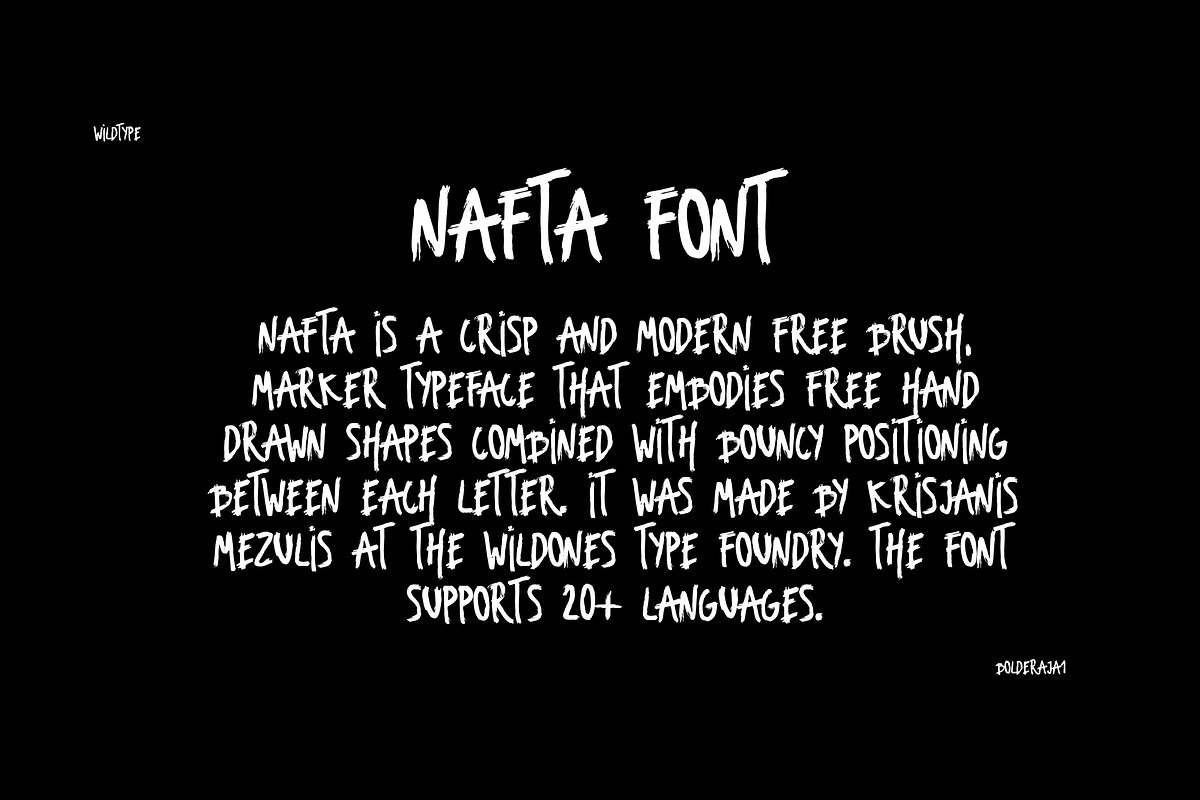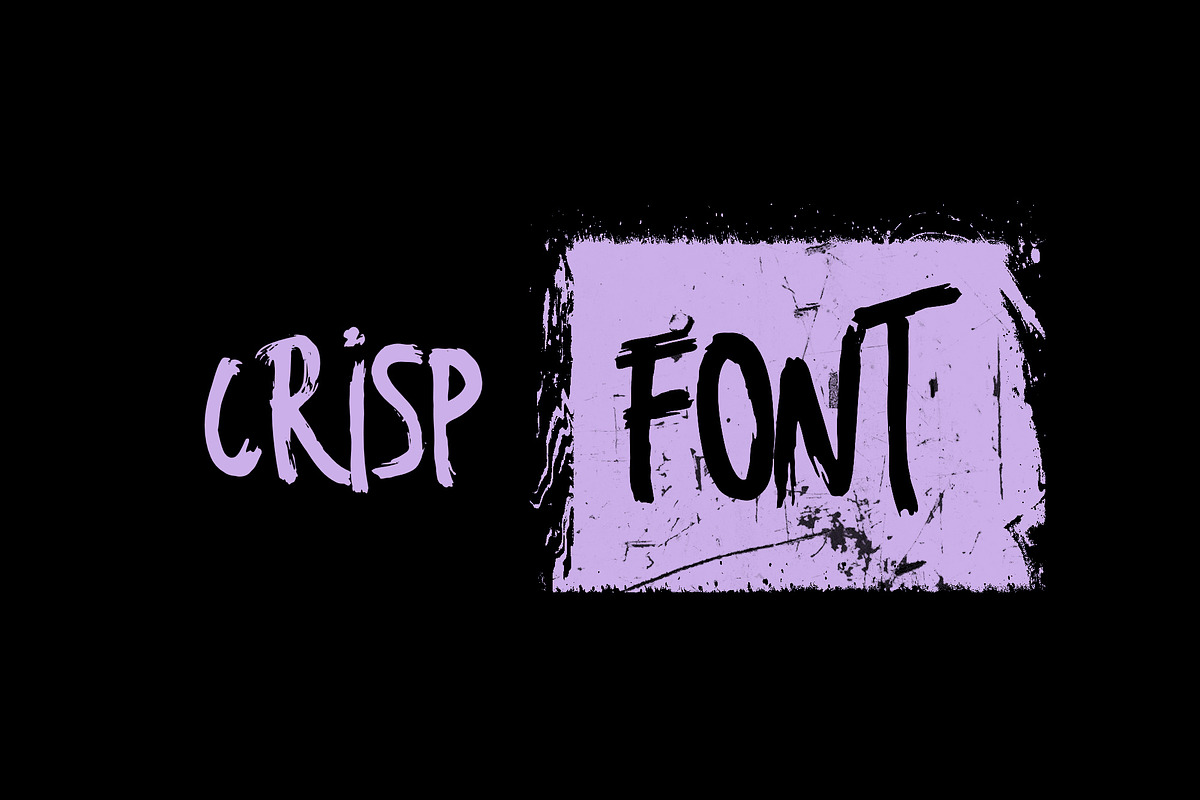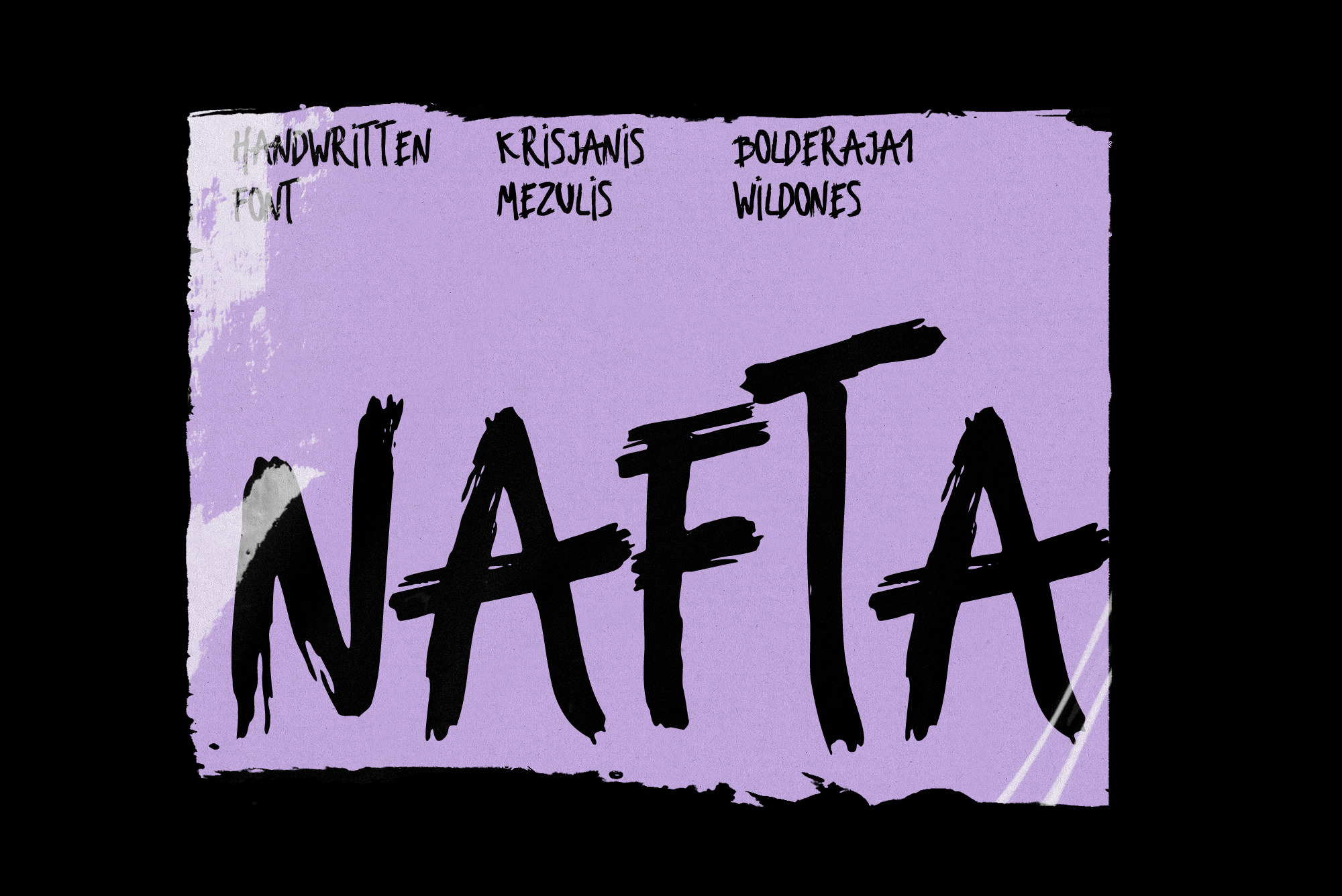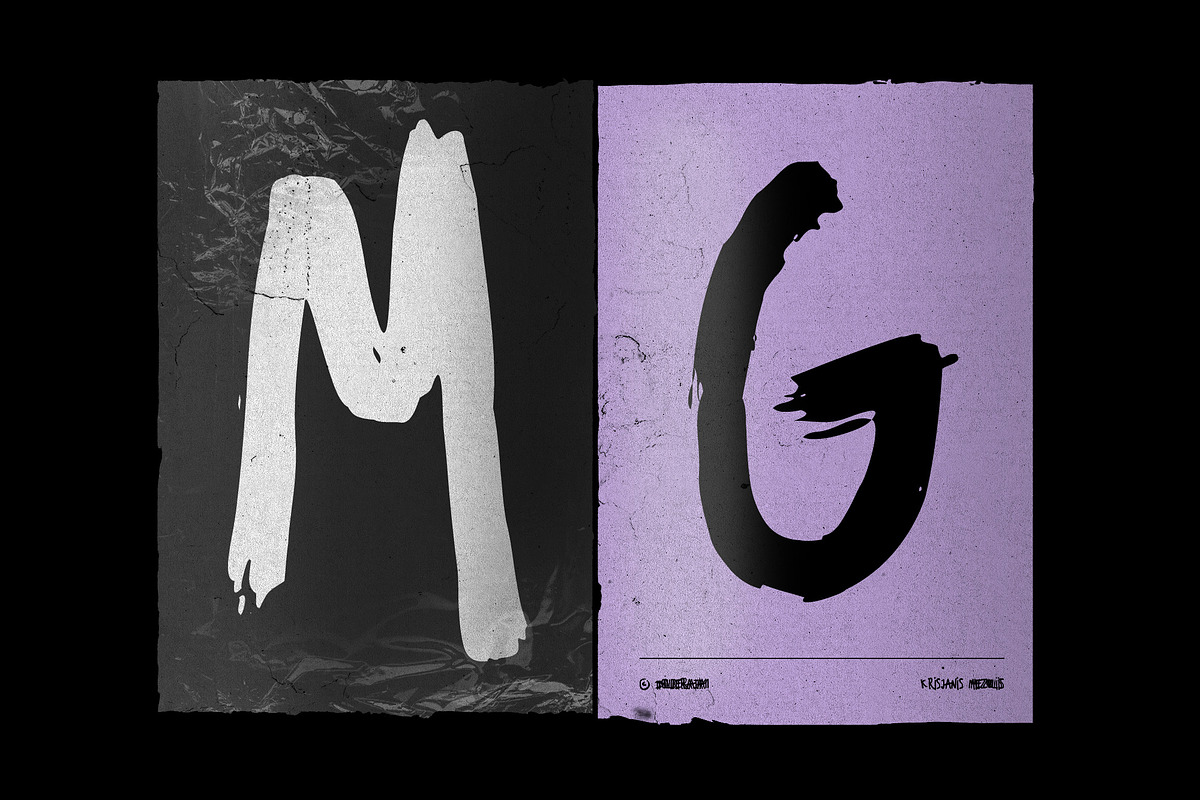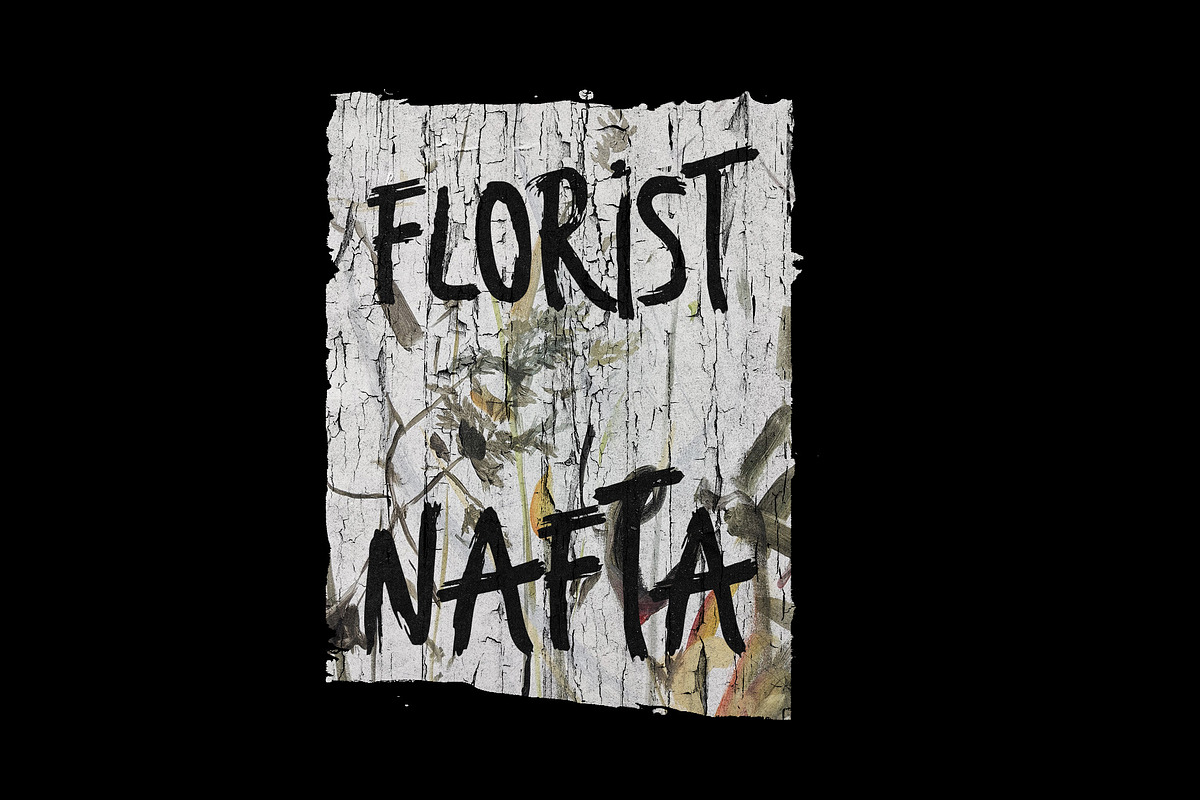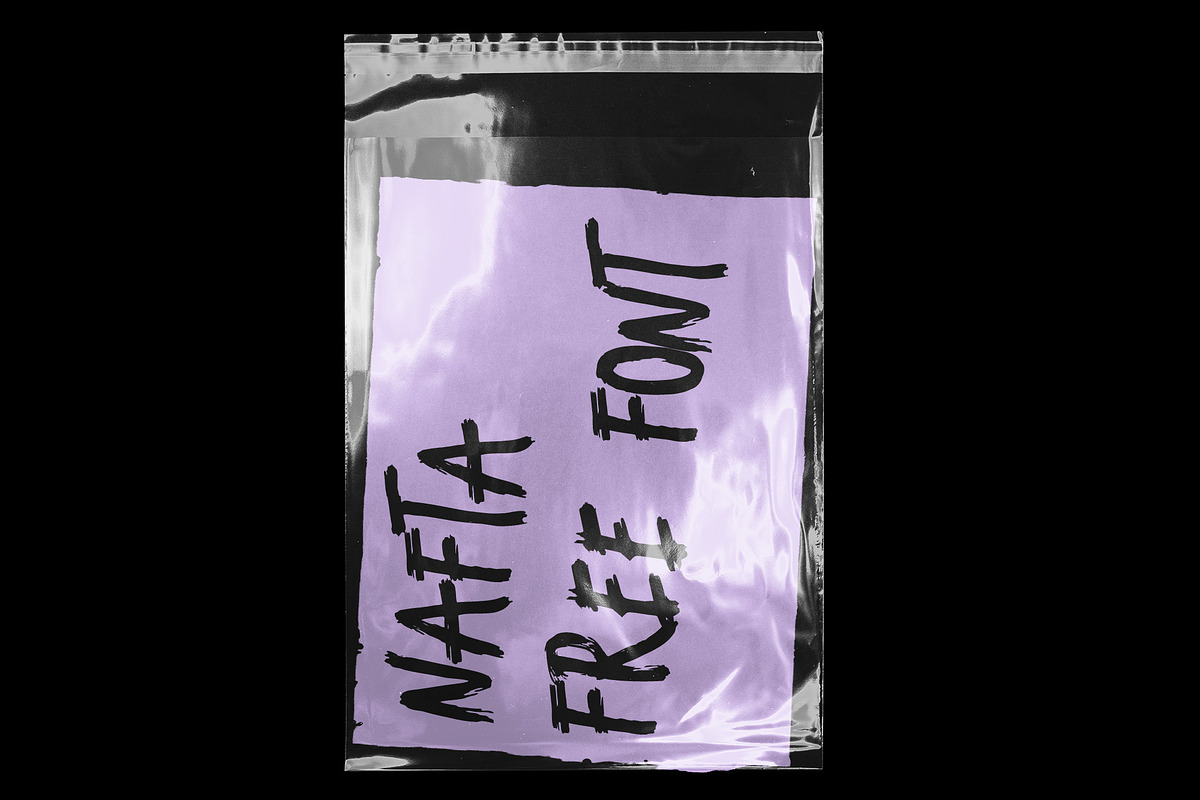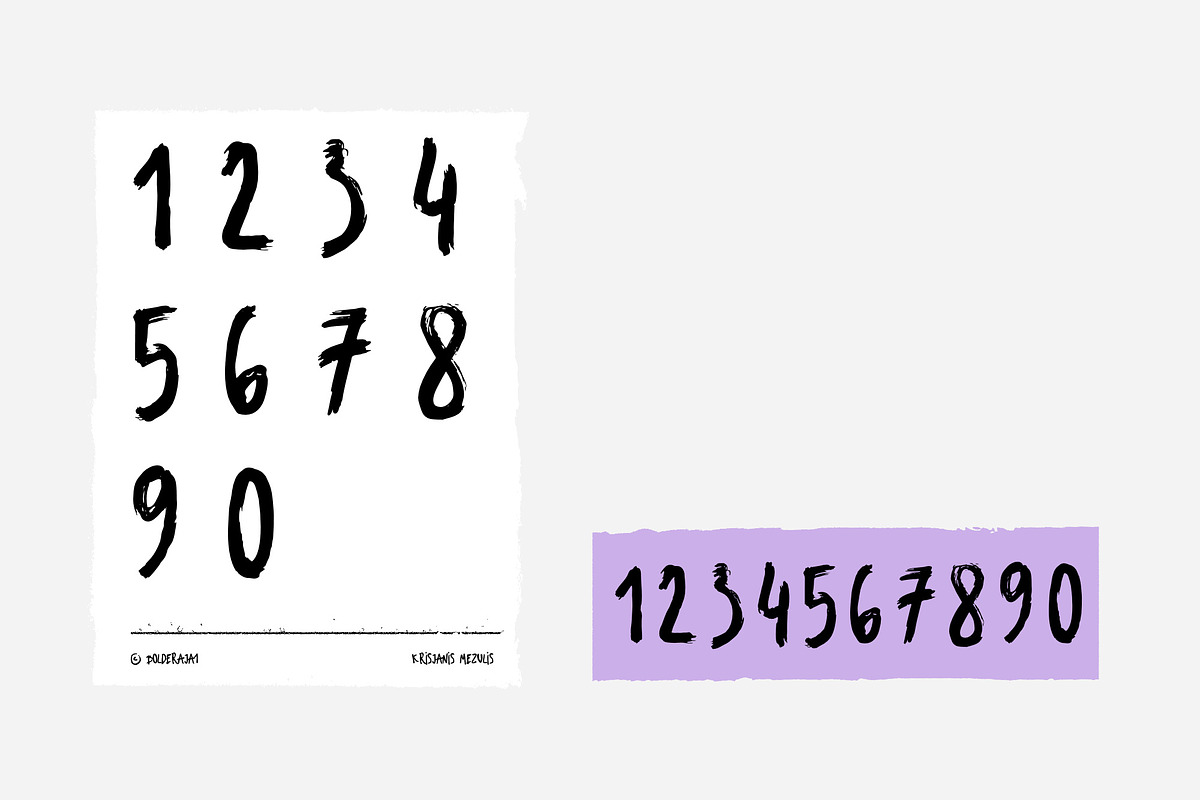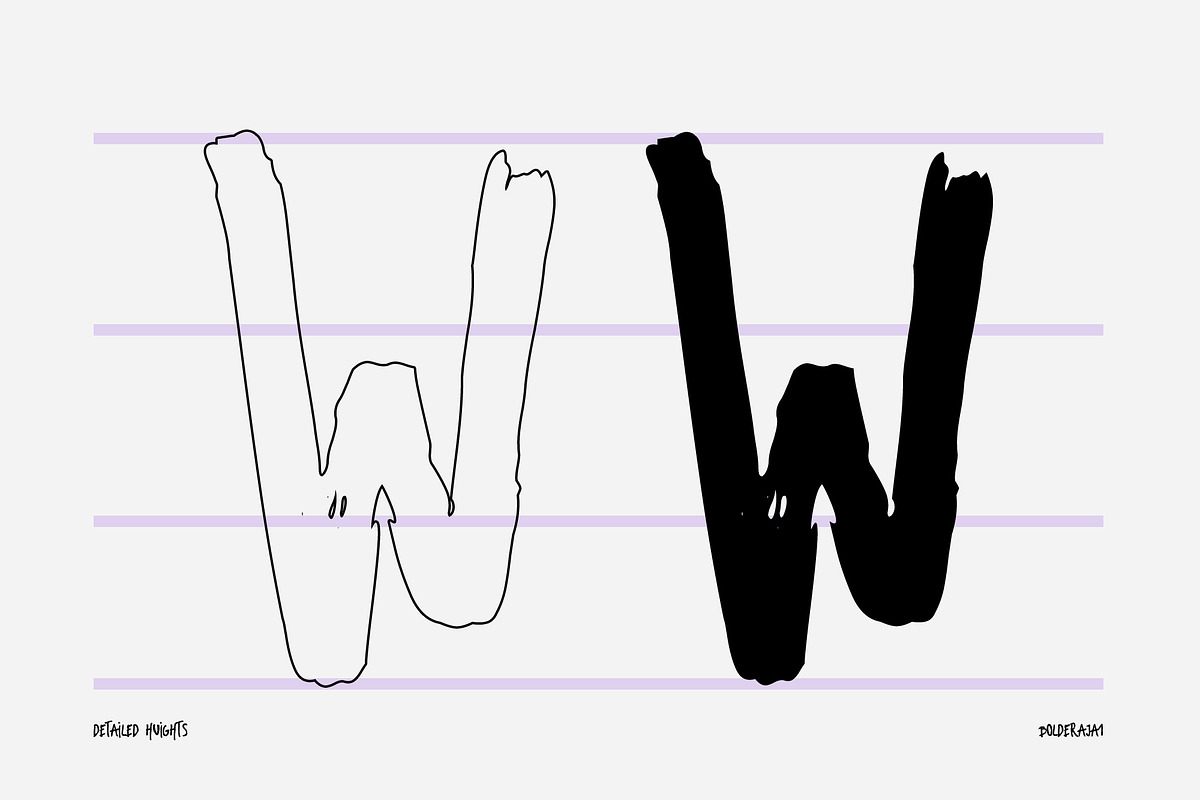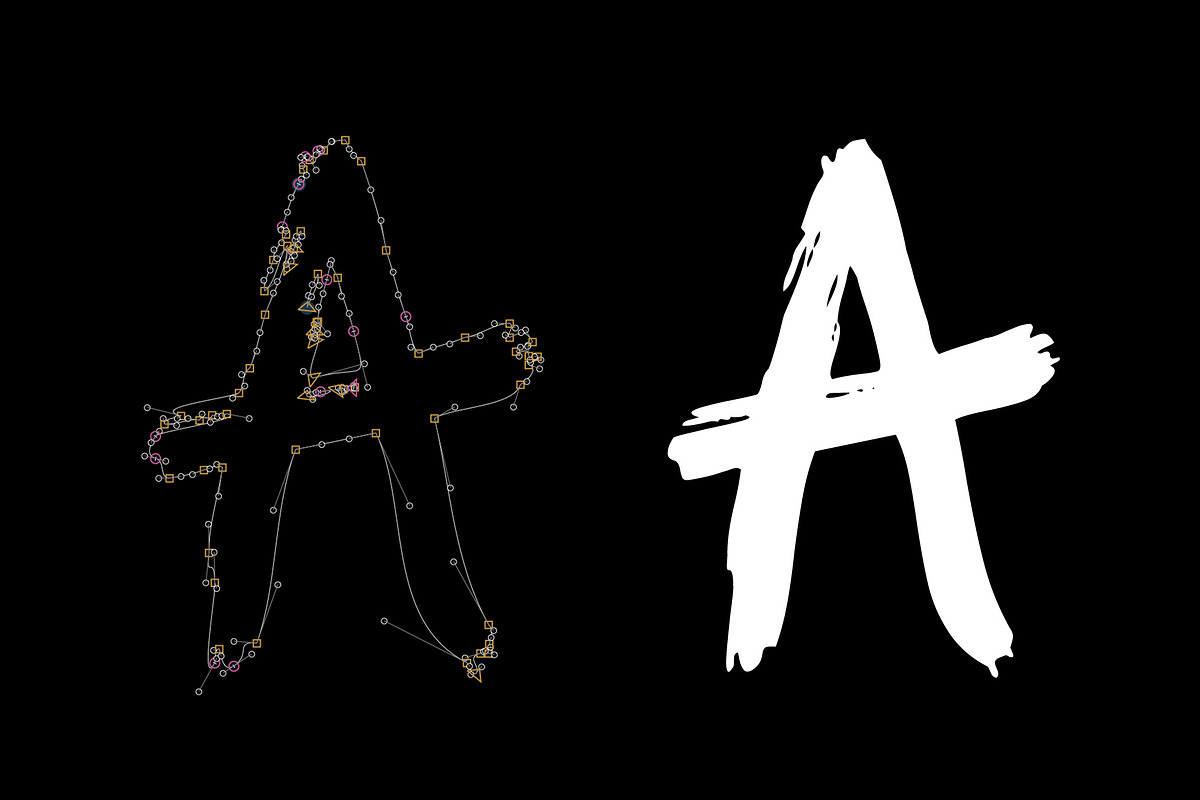
Nafta Light Marker Font
Nafta Is A Crisp And Modern Free Brush, Marker Typeface That Embodies Free Hand Drawn Shapes Combined With Bouncy Positioning Between Each Letter. It Was Made By Krisjanis Mezulis At The Wildones Type Foundry. This is the basic language supported version of Nafta.